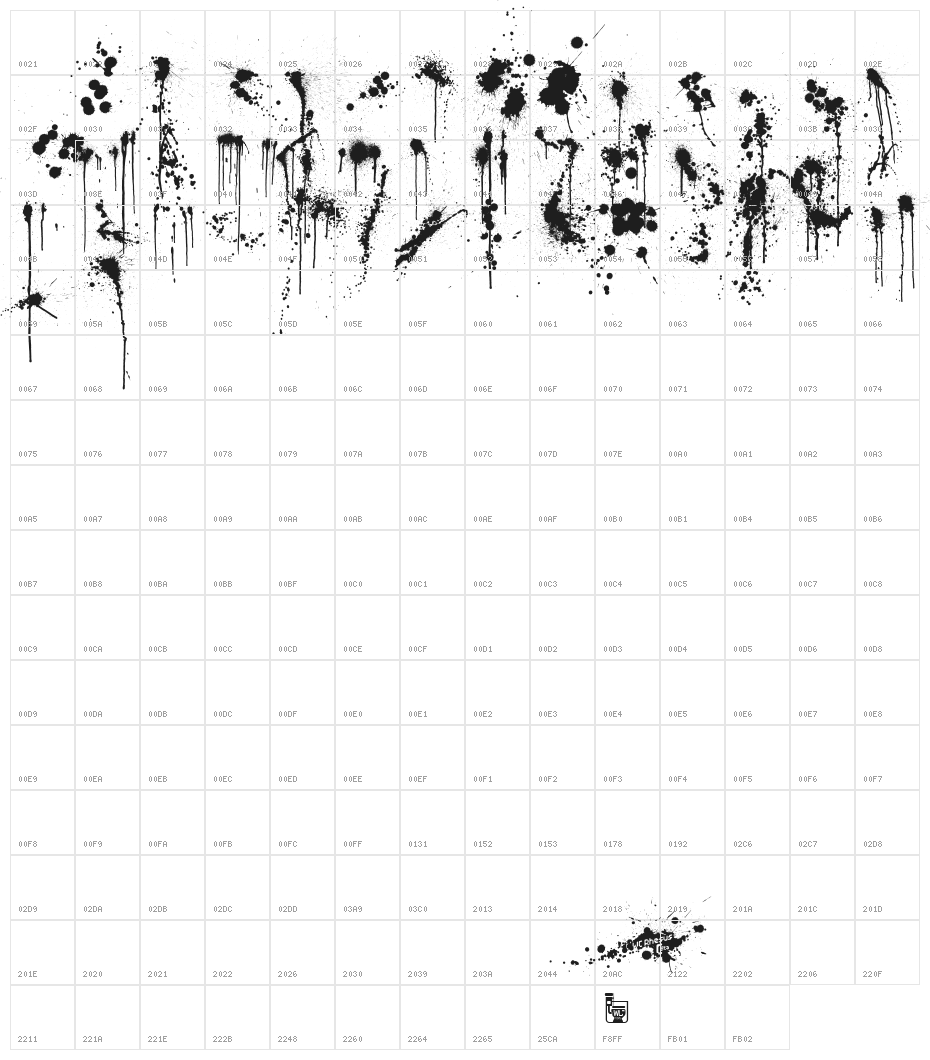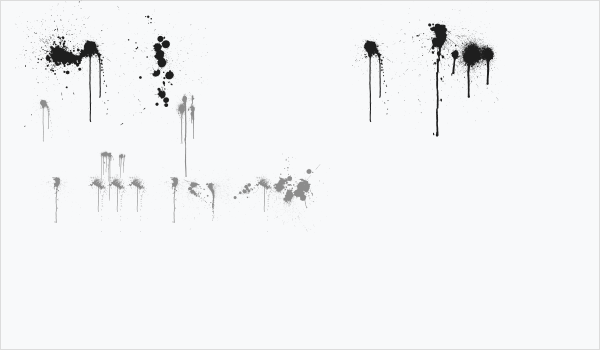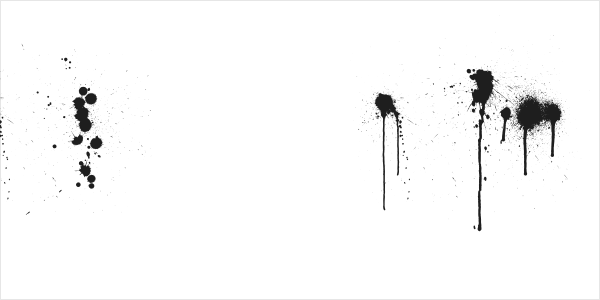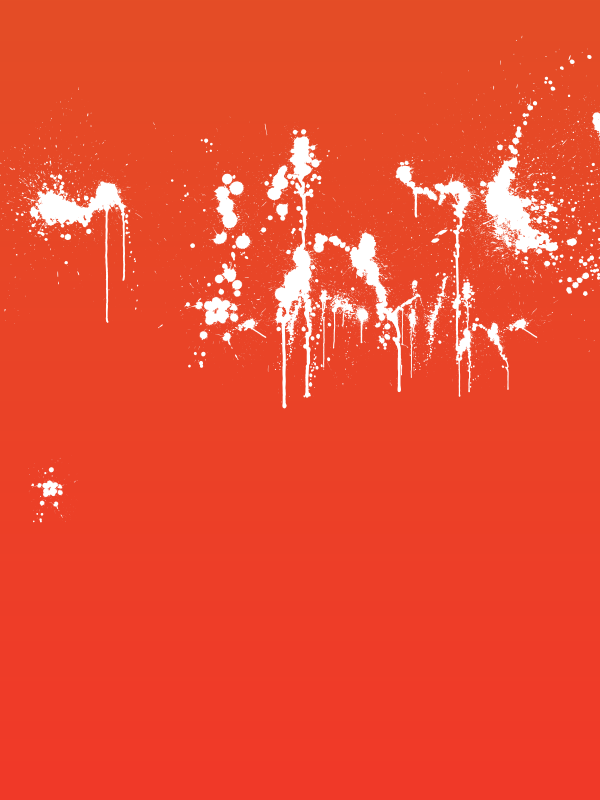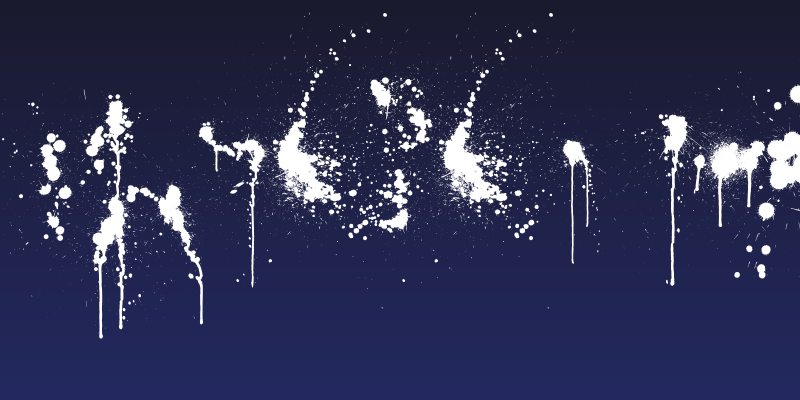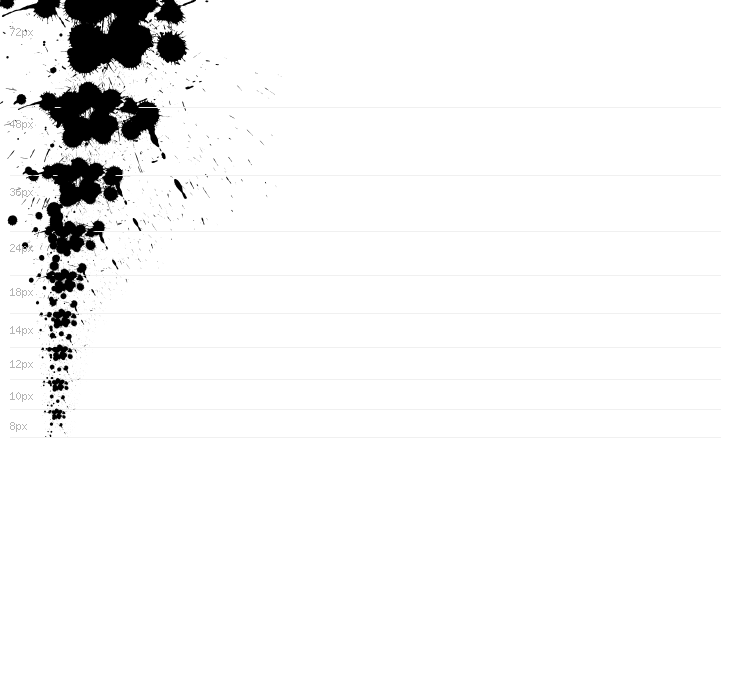
WC Rhesus C 1Bta Font
WC Rhesus C 1Bta Description
This font is a highly artistic and abstract representation, resembling ink splatters and drips. Each character appears as if it has been created by splattering ink onto a surface, resulting in a chaotic yet visually intriguing design. The strokes are irregular and vary in thickness, creating a dynamic and unpredictable pattern. The overall appearance is reminiscent of street art or graffiti, with a raw and expressive style that captures attention. The characters are not easily distinguishable due to their abstract form, making this font more suitable for decorative purposes rather than readability.
| Use Case | Logos, Posters, Artistic Designs |
| Proposed Projects | Ideal for artistic projects, album covers, posters, or any design requiring a bold, expressive statement. |